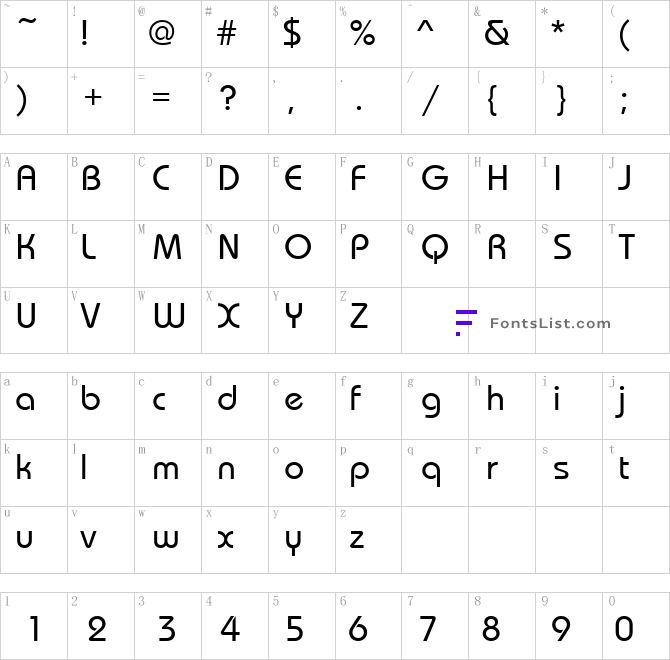
BauhausItcTEEMed.ttf is a very beautiful artistic font, BauhausItcTEEMed.ttf is widely used in the design and printing of various books and pictures,BauhausItcTEEMed.ttf has a strong visual impact,BauhausItcTEEMed.ttf is a commonly used font in newspapers, magazines and books, and is used in posters, e-commerce Poster design, store design, logo design, font design and other fields.BauhausItcTEEMed.